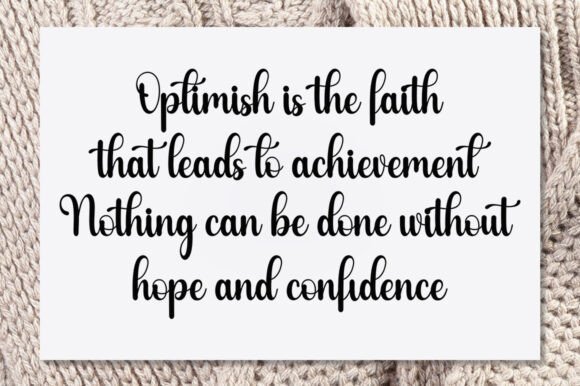
Baby Sophia Font
Baby Sophia is a sweet and unique handwritten font. Its natural and unique style makes it very suitable for a variety of designs such as invitations, books, weddings, magazines, letters, branding and more. The only limit is your imagination.